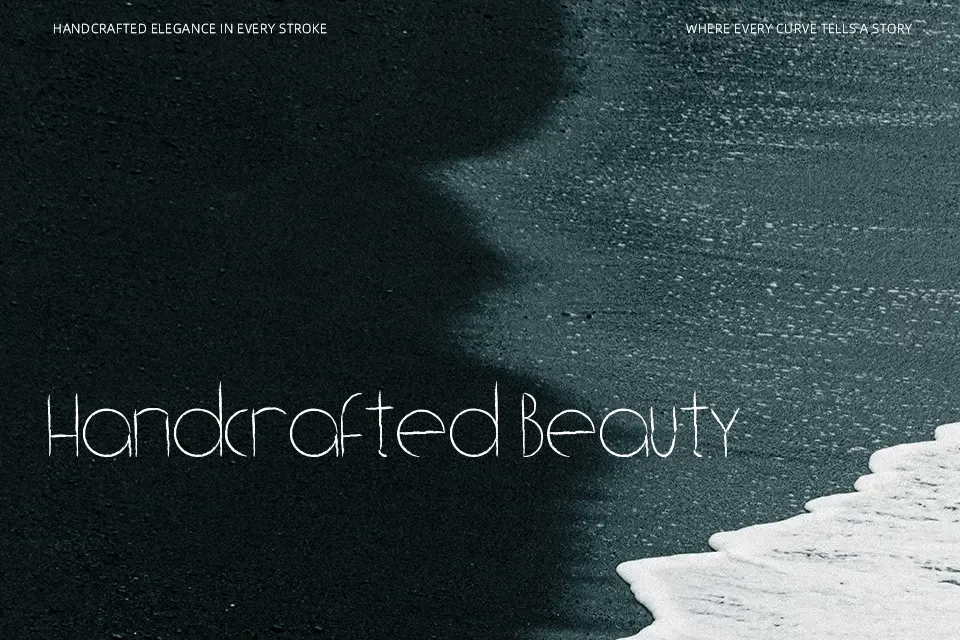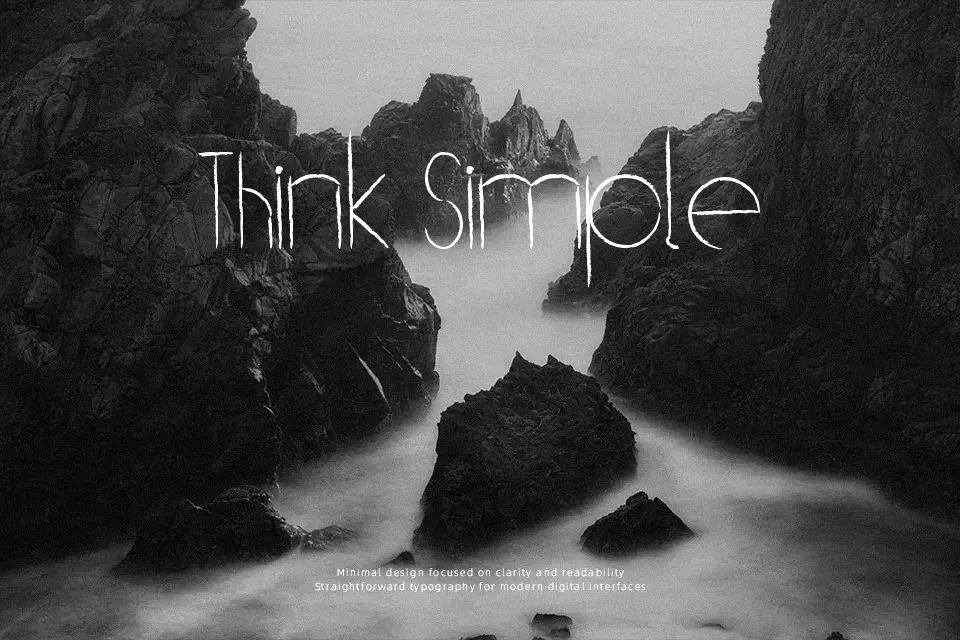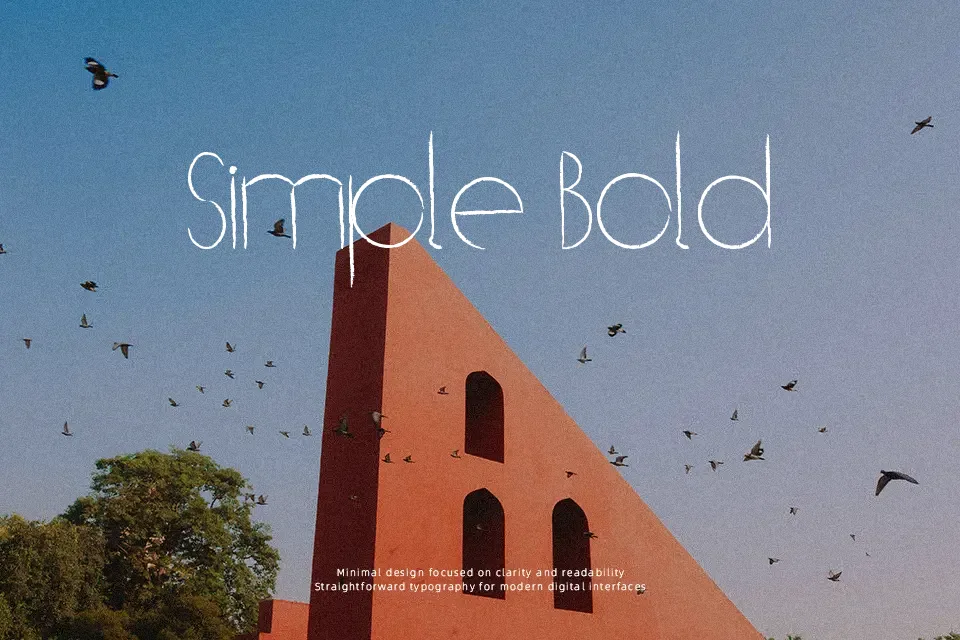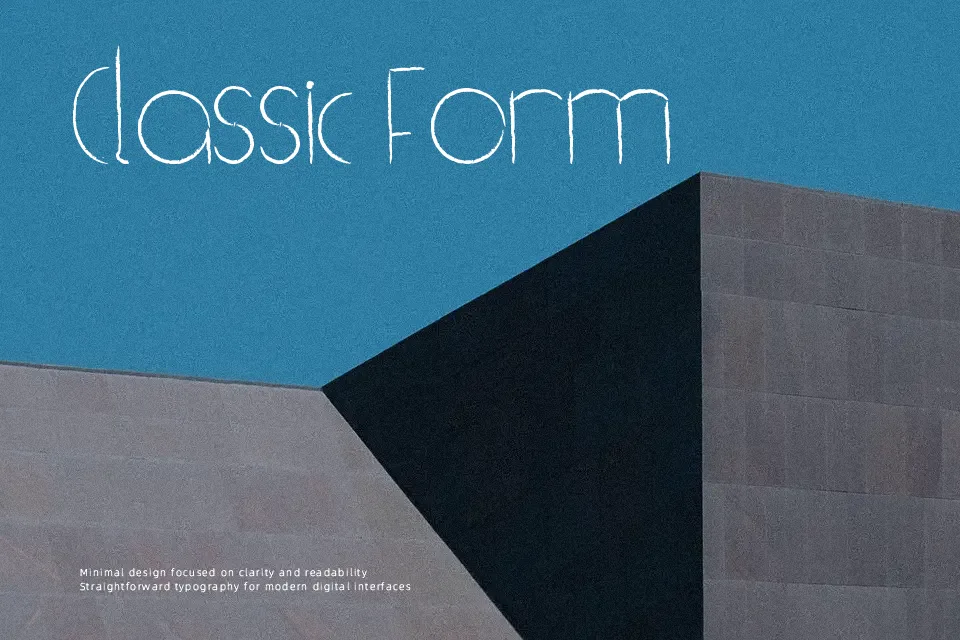
(((o))) Brushhh Font
Designed by Bichochos
(((o))) Brushhh is a free brush font created by Bichochos, featuring rough, eroded strokes that mimic the natural imperfection of a worn paintbrush or marker. Its irregular edges and organic texture give each character a raw, handcrafted energy that feels both spontaneous and intentional. The font sits in the Fancy/Eroded category, making it well-suited for designs that call for a gritty, street-art-influenced aesthetic. Ideal for music posters, album covers, bold headlines, tattoo lettering concepts, and social media content where visual impact and authenticity matter.
Perfect for headline, music, and poster, with a artistic and brush style.